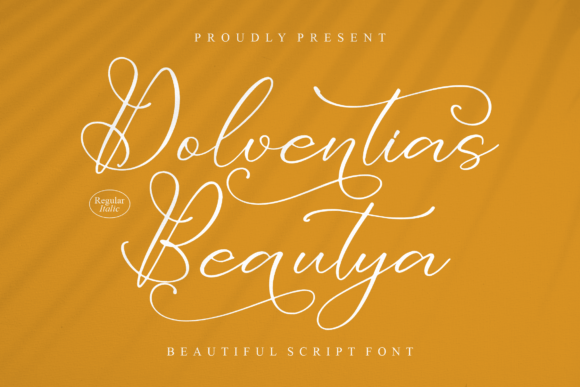
Behold, Dolventias Beautya, a captivating script font that exudes charm and elegance, transforming your digital communications into works of art. With its sweeping curves, delicate strokes, and graceful letterforms, this font is a true masterpiece, handcrafted to evoke emotions and leave a lasting impression.
Journey into a realm of visual enchantment as you explore the boundless possibilities of Dolventias Beautya. Its versatility knows no limits, seamlessly adapting to a symphony of creative projects, from heartfelt wedding invitations and thank-you cards to eye-catching logos and enchanting greeting cards. Each glyph is meticulously designed to reflect the beauty of handwritten calligraphy, capturing the essence of heartfelt sentiments and personal touches.
Indulge in the artistry of Dolventias Beautya and elevate your email signature to new heights of sophistication. Let your messages bloom with a touch of elegance, ensuring that every word carries the weight of your unique personality. With this font, your emails will transcend the mundane and become cherished keepsakes, reflecting your impeccable taste and attention to detail.
Step into a world where words dance with grace and emotions leap off the screen. Dolventias Beautya is the perfect companion for those seeking to make a statement, to leave an indelible mark on the hearts of their audience. Its timeless appeal transcends trends, making it an enduring choice for discerning individuals who value authenticity and artistry.
Embrace the magic of Dolventias Beautya and witness the transformation of your creative endeavors. Prepare to be captivated by the beauty of this font, as it weaves its enchanting spell over your designs, adding a touch of magic to every project.